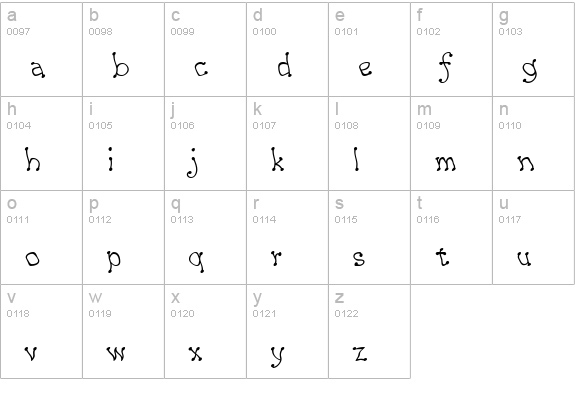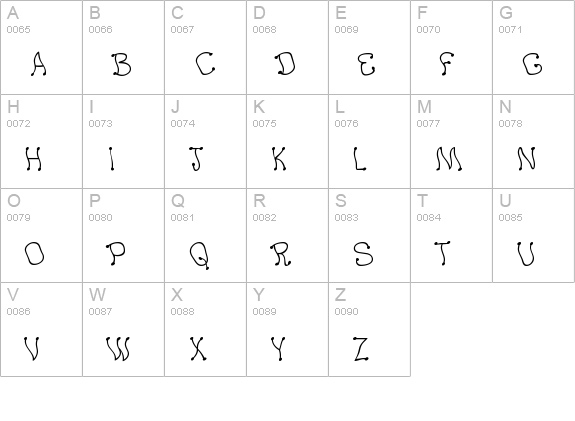
ArgentaBobbWig Font Details
ArgentaBobbWig font is a playful and whimsical typeface that exudes charm and character. With its unique bobbed design and elegant curves, this font is perfect for adding a touch of fun to any project. Whether you're creating invitations, posters, or branding materials, ArgentaBobbWig will make your text stand out in style. And the best part? This font is completely free to download at FontsMarket.com! So go ahead and give your designs a fresh and dynamic look with ArgentaBobbWig font today.